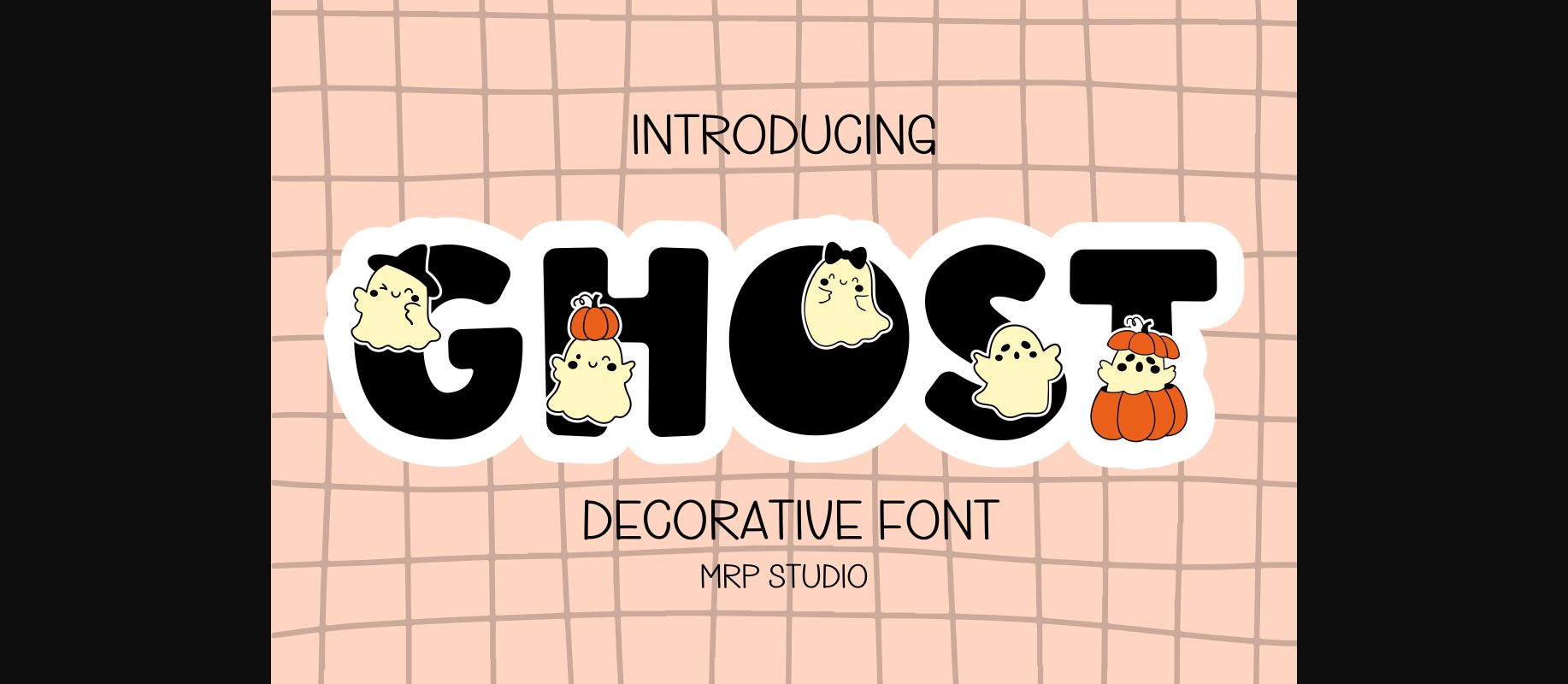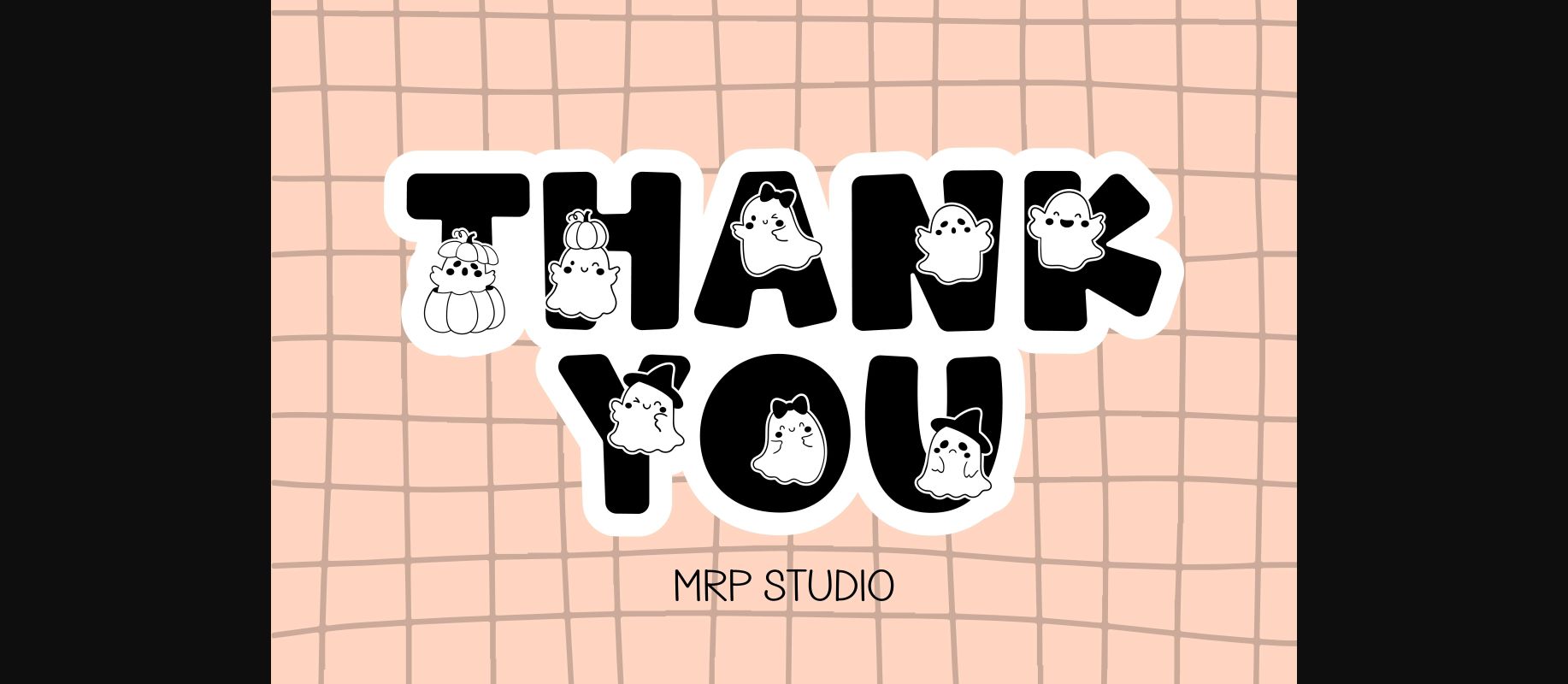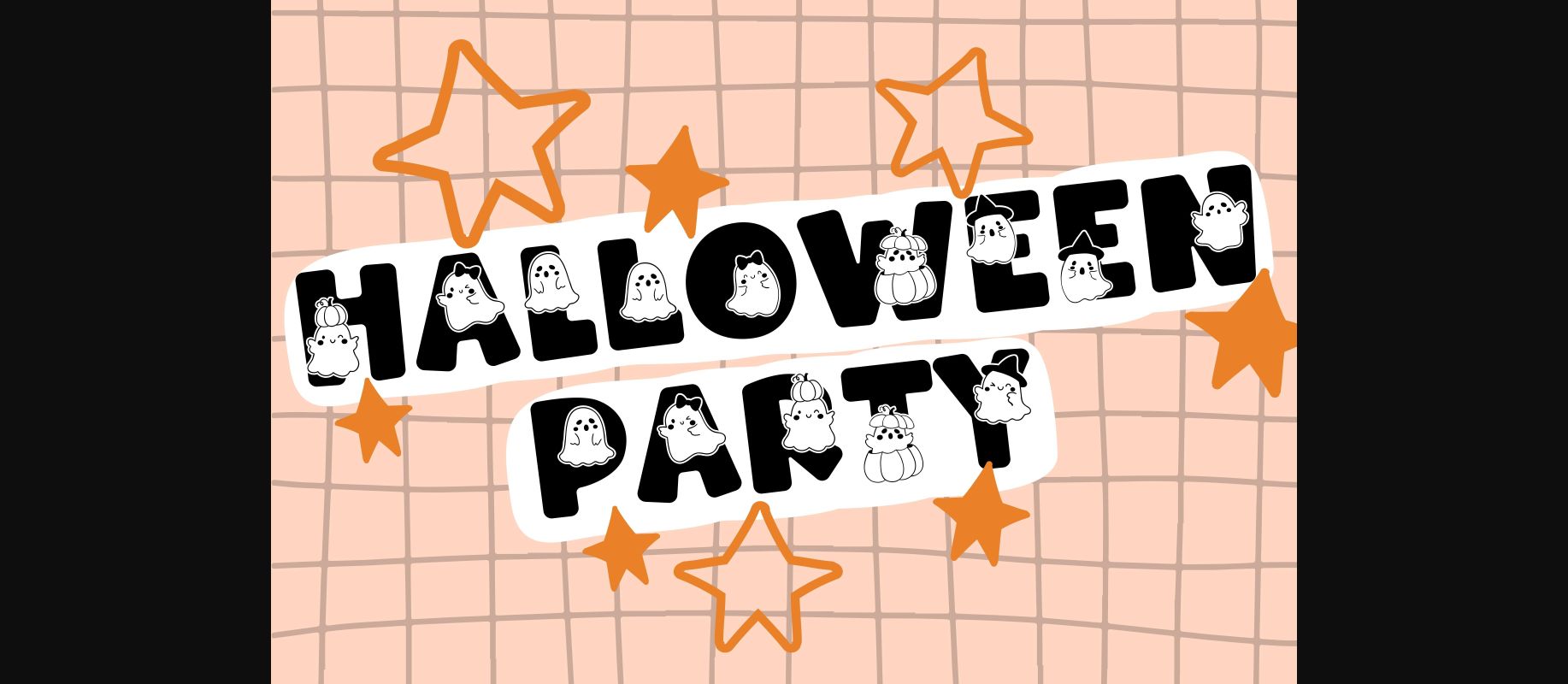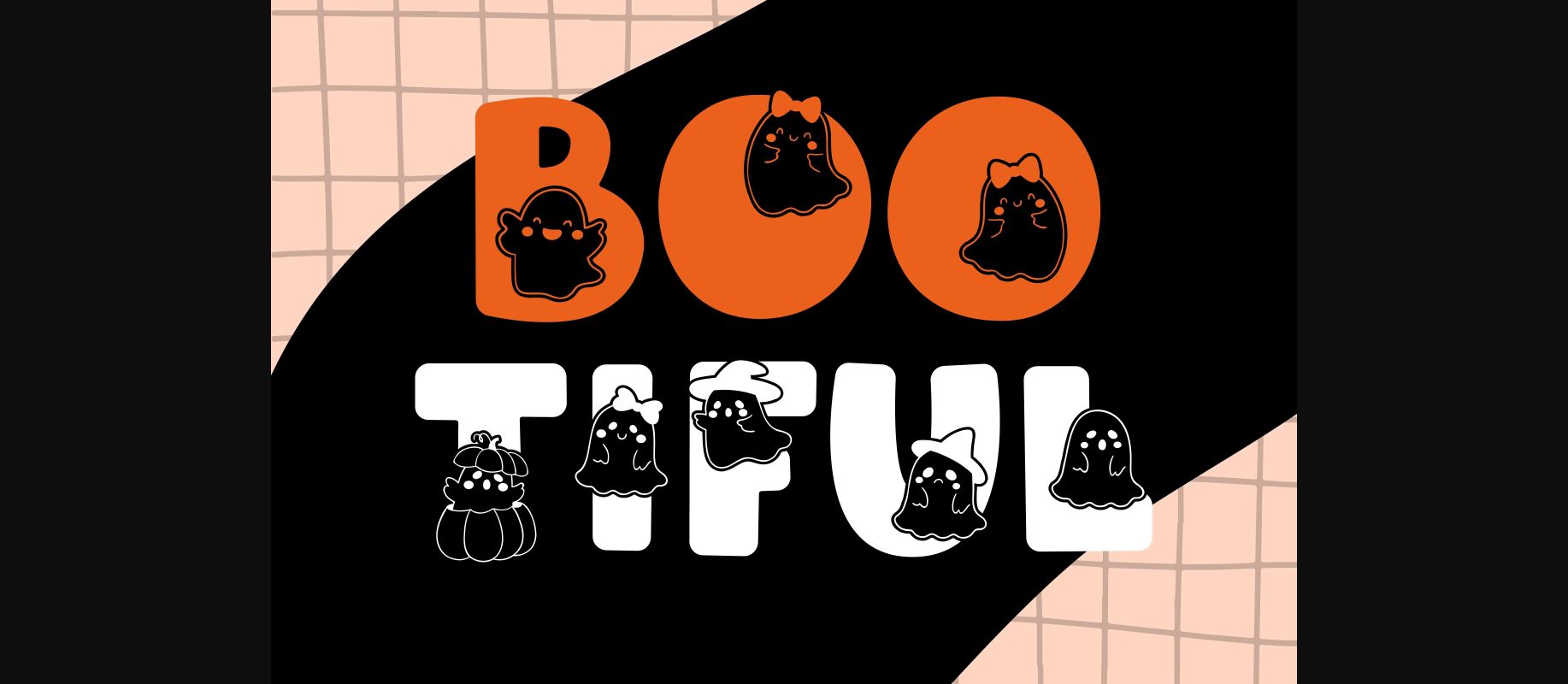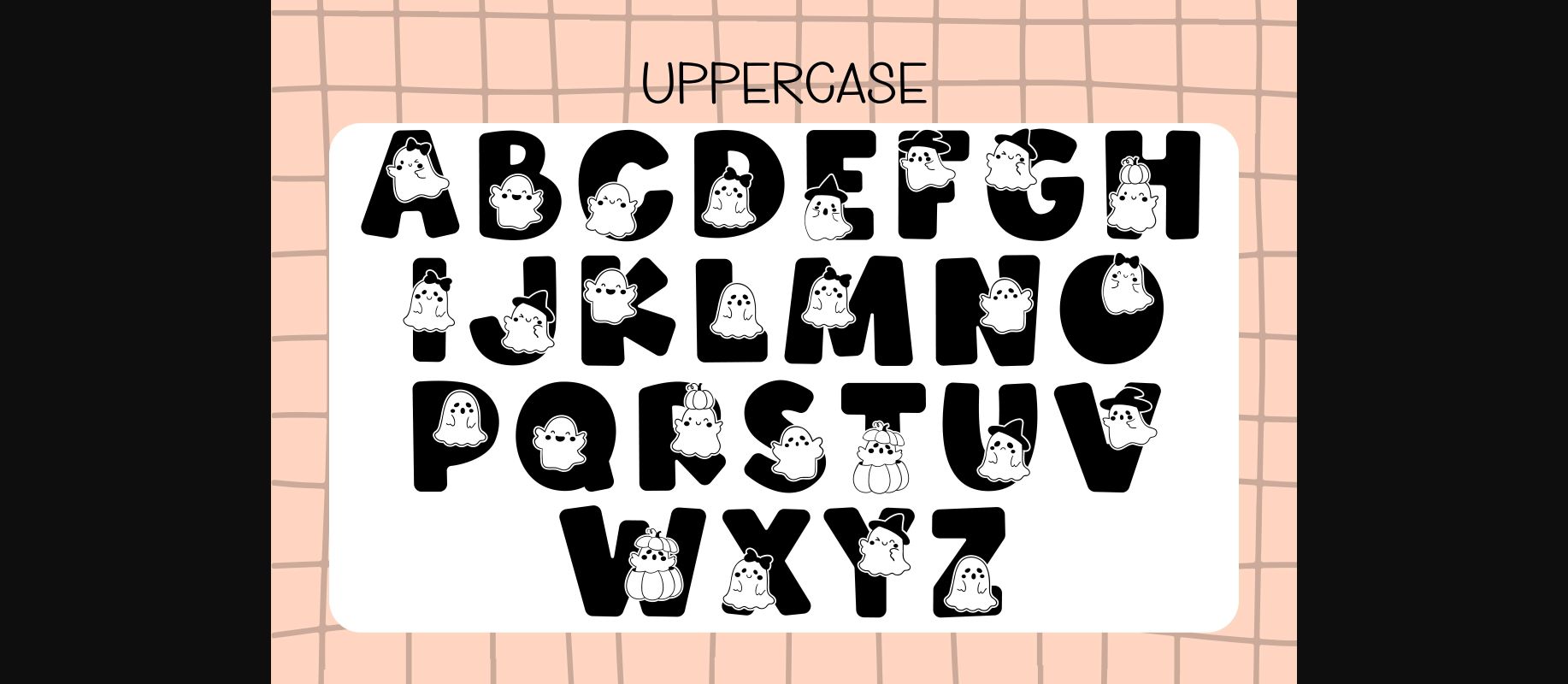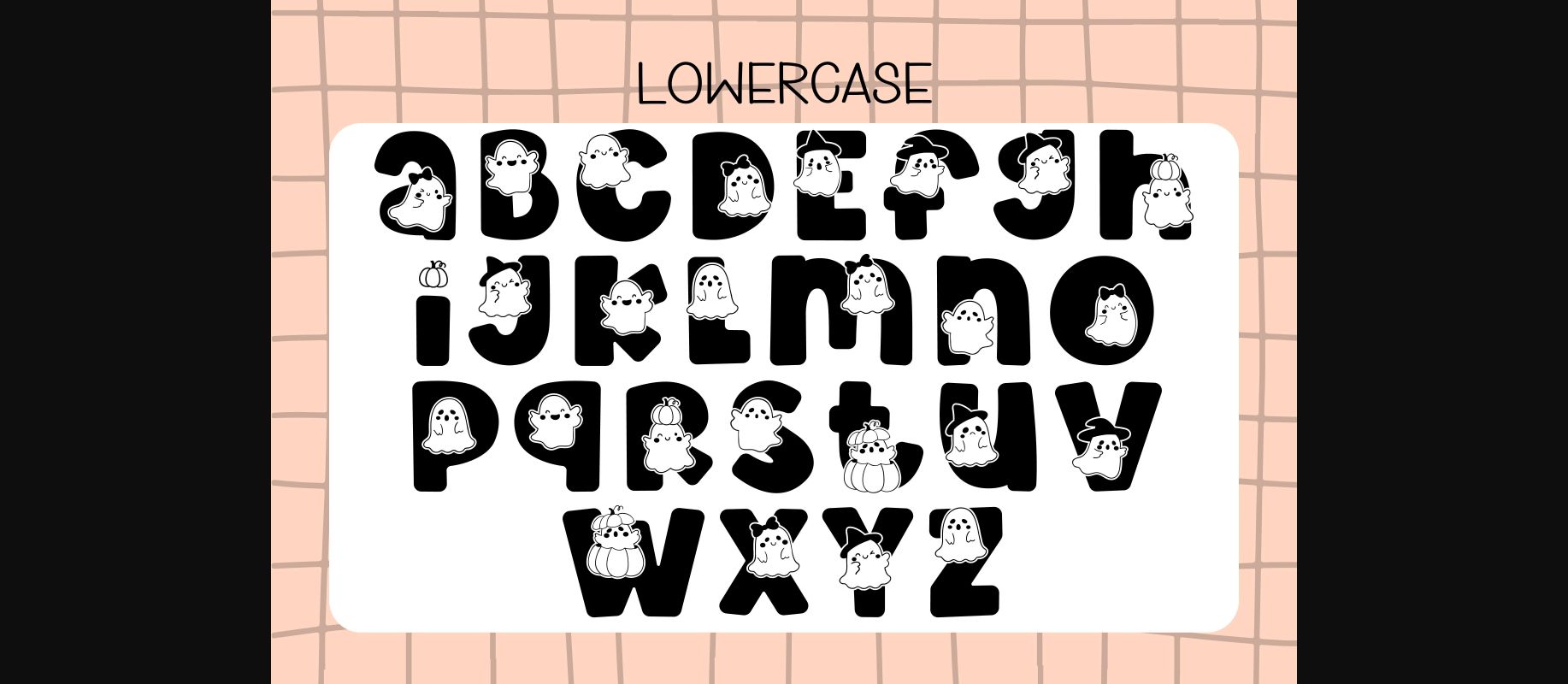
Ghost Font
About Ghost Font
Ghost is designed in a spooky and adorable decorative font style. It would be awesome for your lovely Project and also your child-related project such as back to school, Halloween party decoration, and much more to any topic which needs bright and fun touch. Let’s try it and add it to your creative ideas and notice how it makes them stand out!